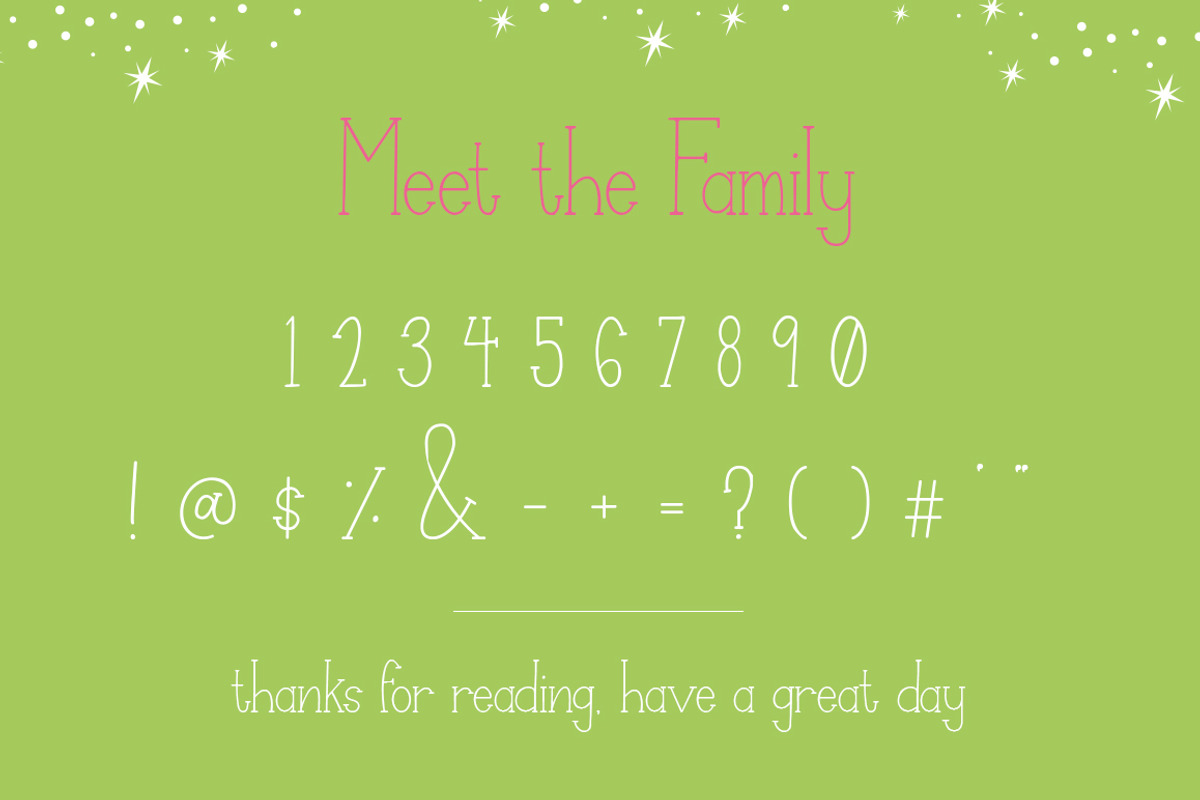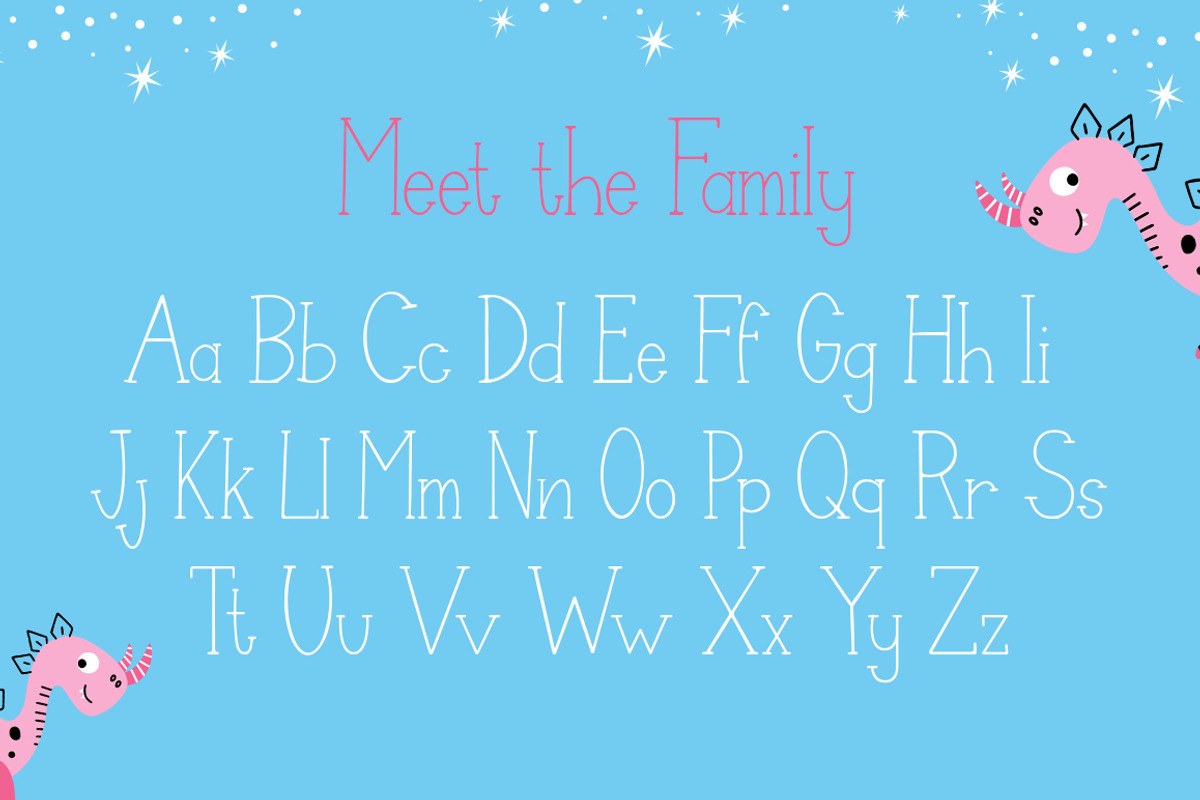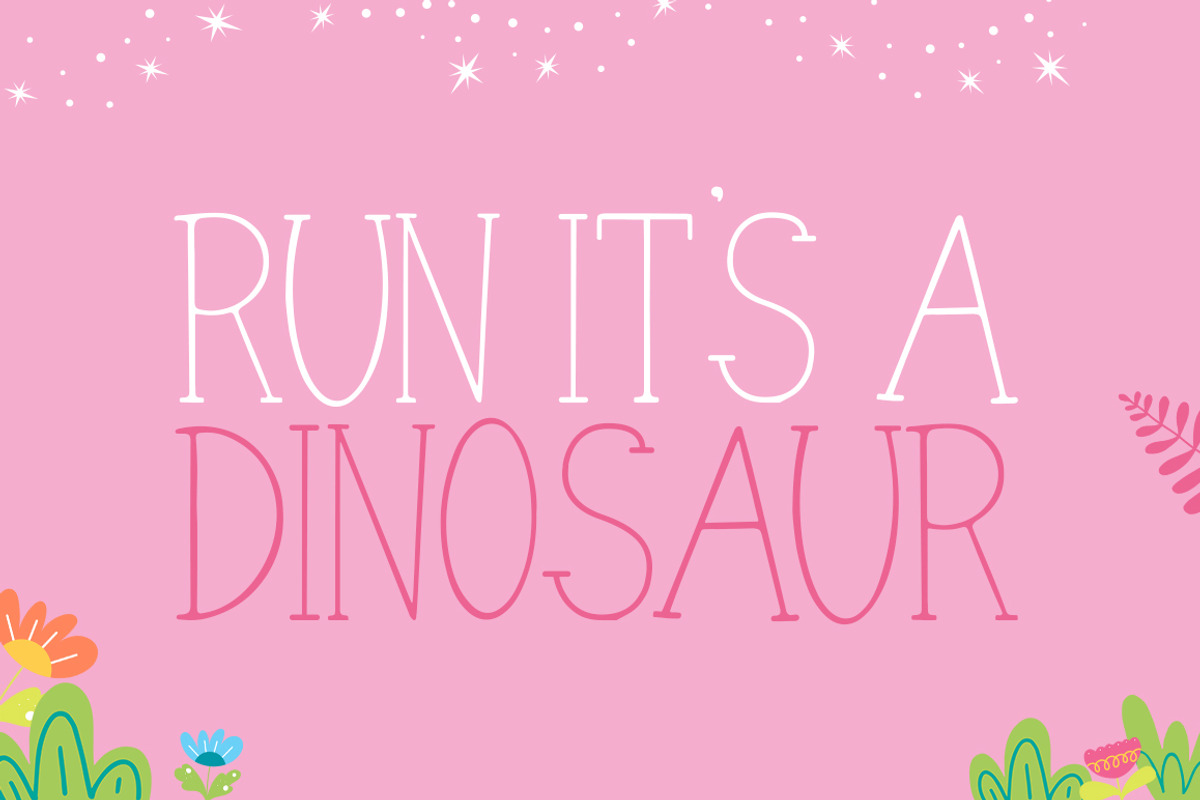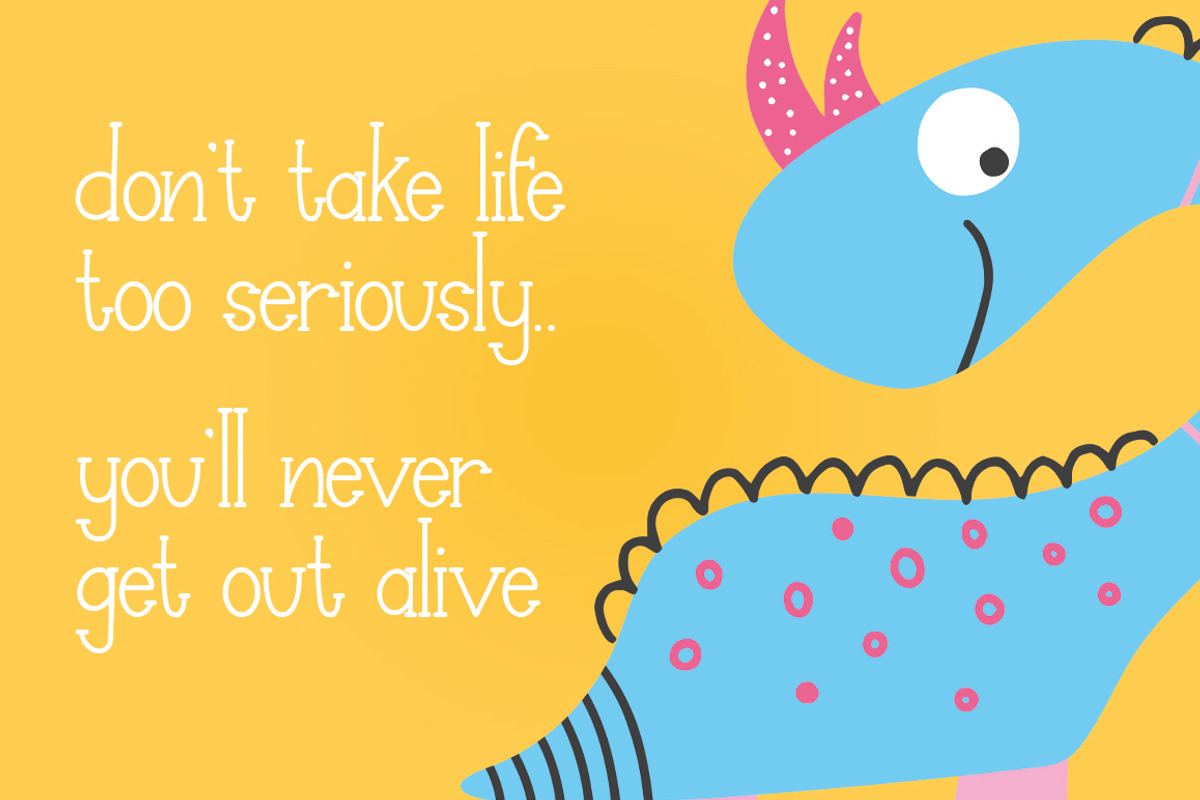
Dino Friends Font
Check out our roaring new font Dino Friends! Fun for cute kids designs or even unique and quirky logos! Rawrsome!
Why Dino Friends Font is worth a look
Dino Friends Font by Salt & Pepper Designs fits naturally into Branding, posters, packaging, typography.